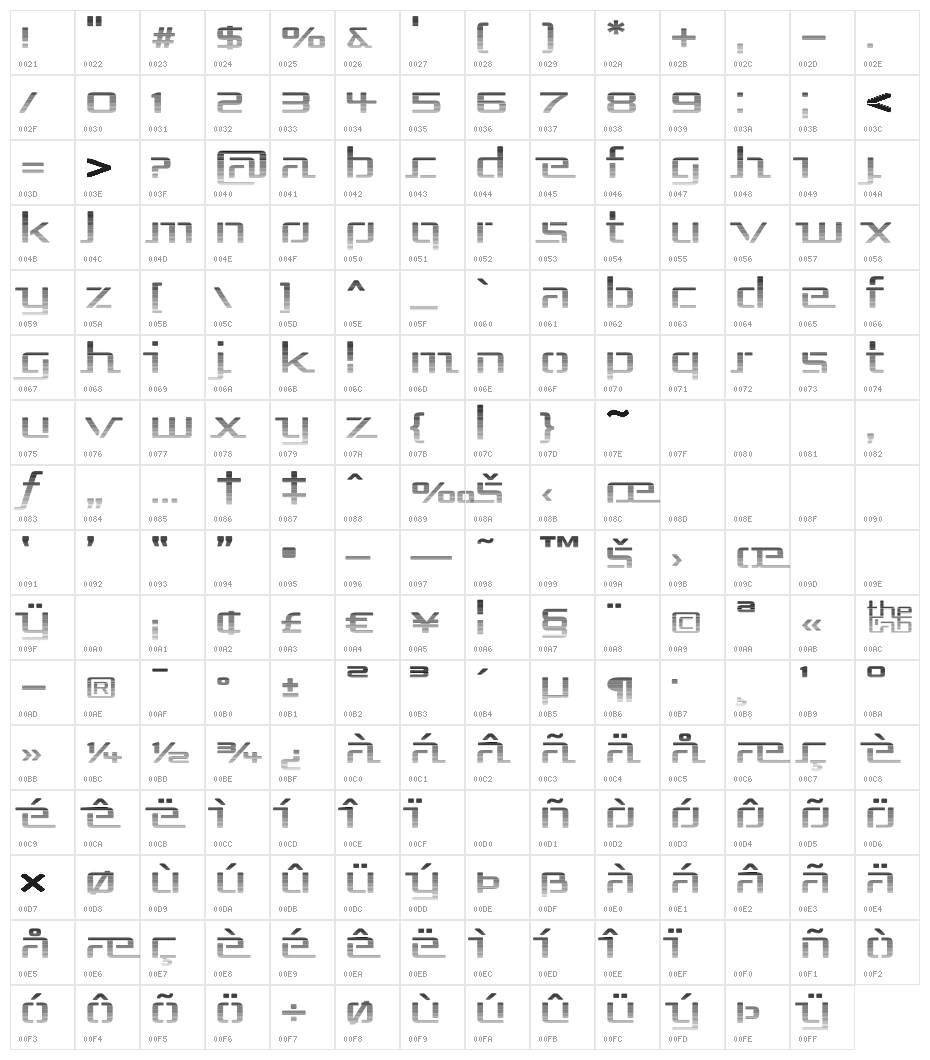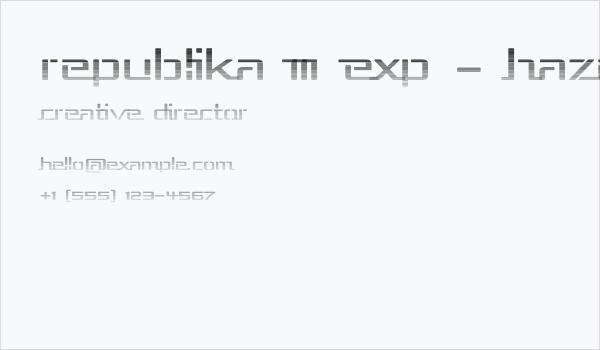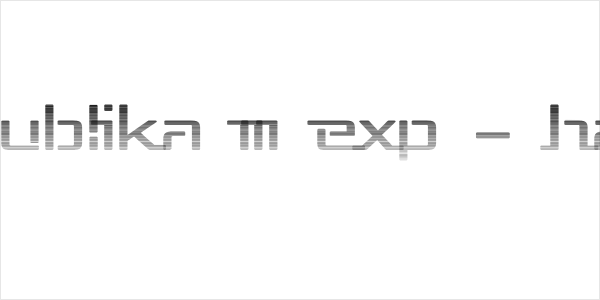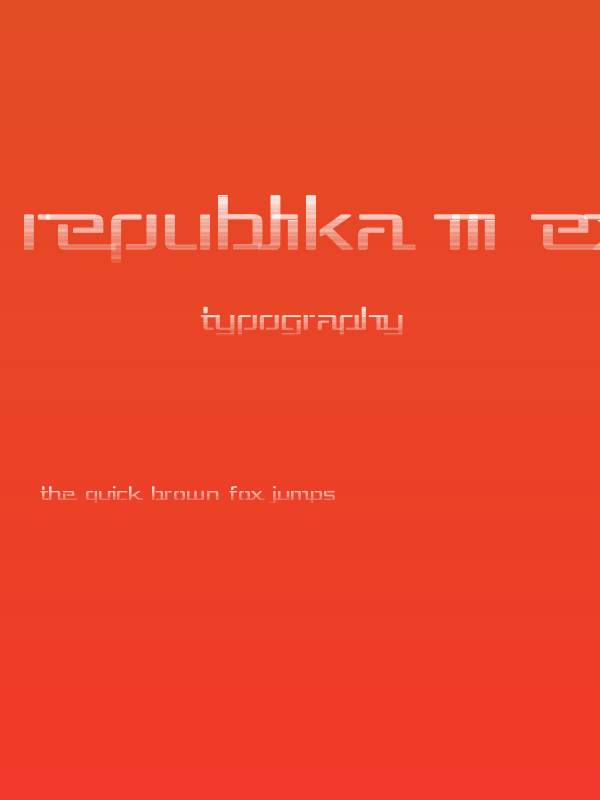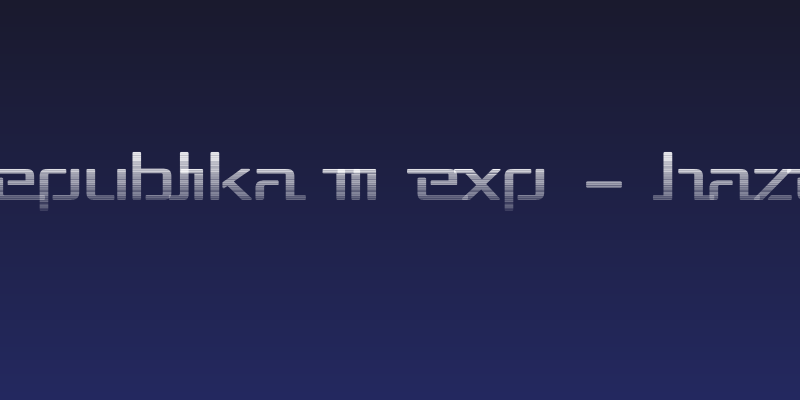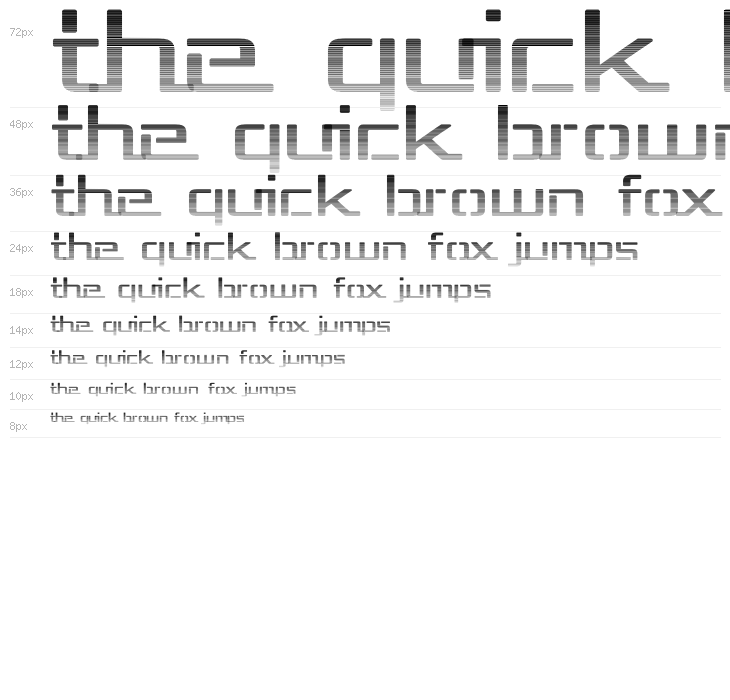
Republika III Exp - Haze Font
Republika III Exp - Haze Description
This font features a futuristic and geometric design with a distinct digital aesthetic. The characters are constructed with a series of horizontal lines, creating a layered effect that gives a sense of movement and depth. The uppercase and lowercase letters maintain a consistent style, with angular shapes and sharp edges. The numerals and special characters follow the same design principles, ensuring uniformity across all glyphs. The font's unique appearance makes it suitable for projects that require a modern and tech-inspired look.
| Use Case | Logos, Headlines, Digital interfaces |
| Proposed Projects | Ideal for technology branding, digital interfaces, video game design, and sci-fi themed projects. |